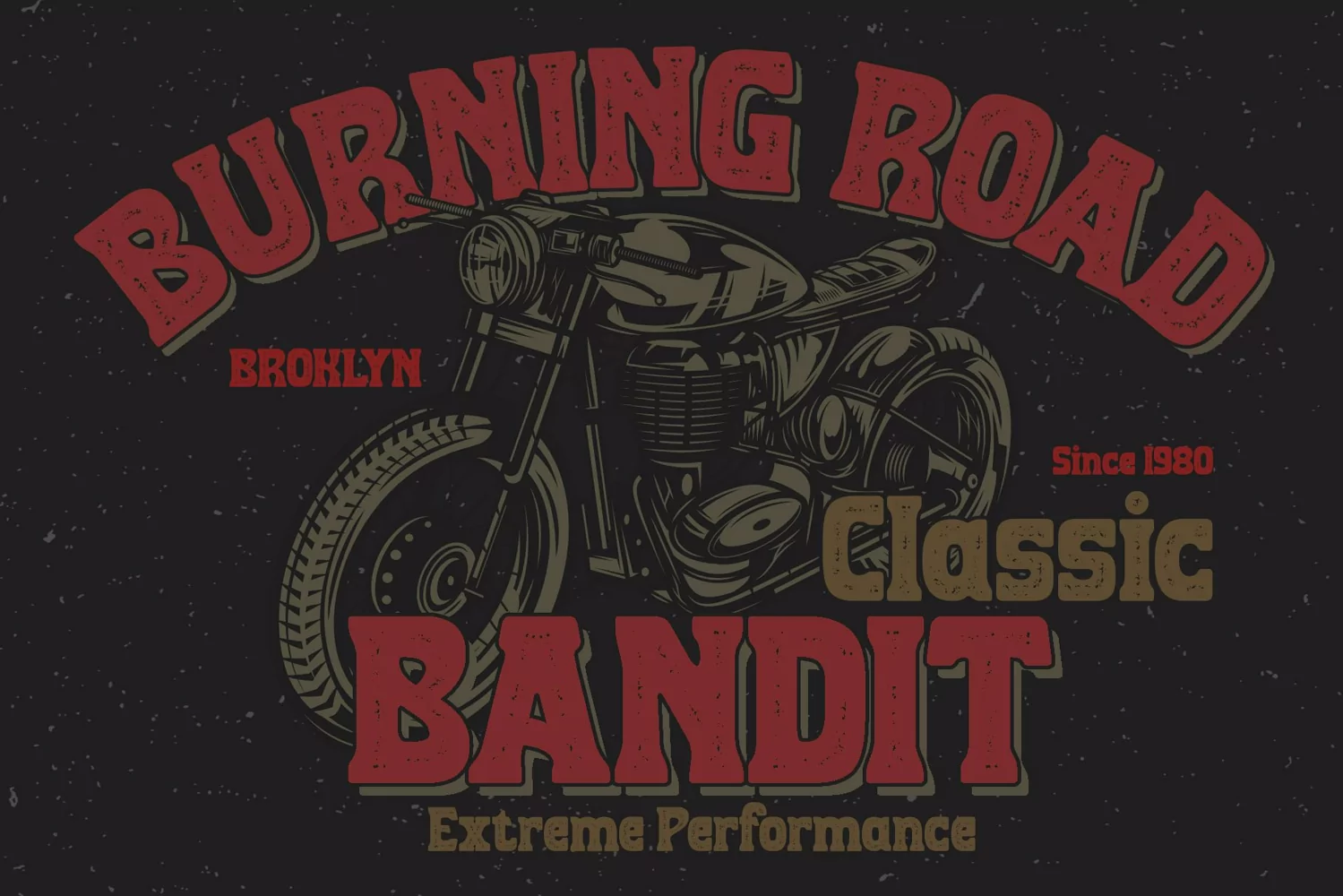
MackDutch
MackDucth font pair was inspired by old magazine that i saw at barbershop. It was crafted by hand specially to add natural handmade feeling in its brand identity than i make it clean with pentool.
We add some rough to make it retro feel, this font is bold so it can look strong if you use it for branding or even title for your retro poster design.
MackDucth font is a great retro rough font that will looks good in logotype, labels, t-shirt prints, product packaging, invitations, advertising and others.
If you looking for retro rough font style, this font is a great choice for you to make your design awesome and flawless.